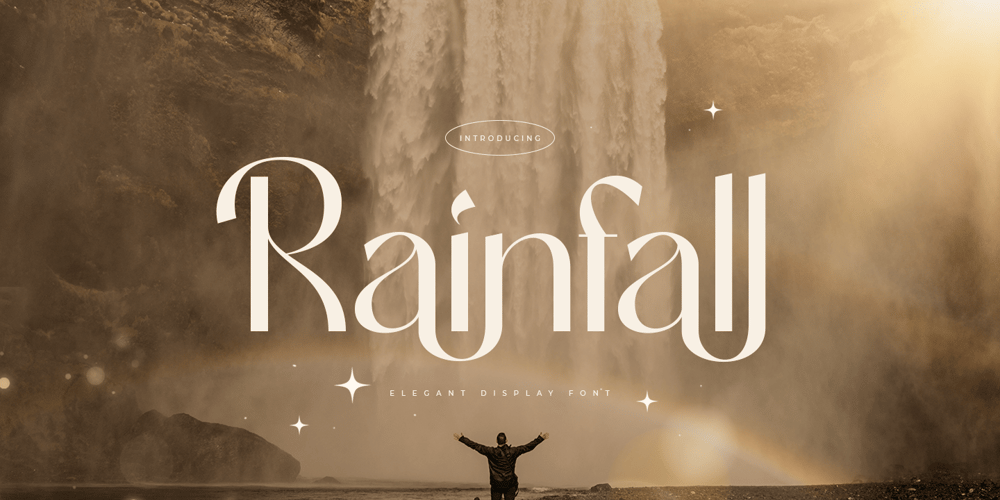
Rainfall Font Family was designed by Zamroni Hamzah and published by Sensatype Studio. Rainfall contains 2 styles and family package options. Rainfall is a Modern Elegant Display Font.In a new generations, we analyze that any designer or brand owner need to make their brand standout. As our focus that analyze any typeface that helps to leverage any logo design to look more modern and unique. We prepared this font with any unique characters to help you create unlimited variations for your creative needs.Rainfall Modern Elegant Display Font ready with: Any options to get creative variations with unique letters Preview as a inspirations that you can do with Rainfall font Ready with Lowercase and Uppercase characters Wish you enjoy our font and if you have a question, Please don’t hesitate to drop message & I’m happy to help 🙂